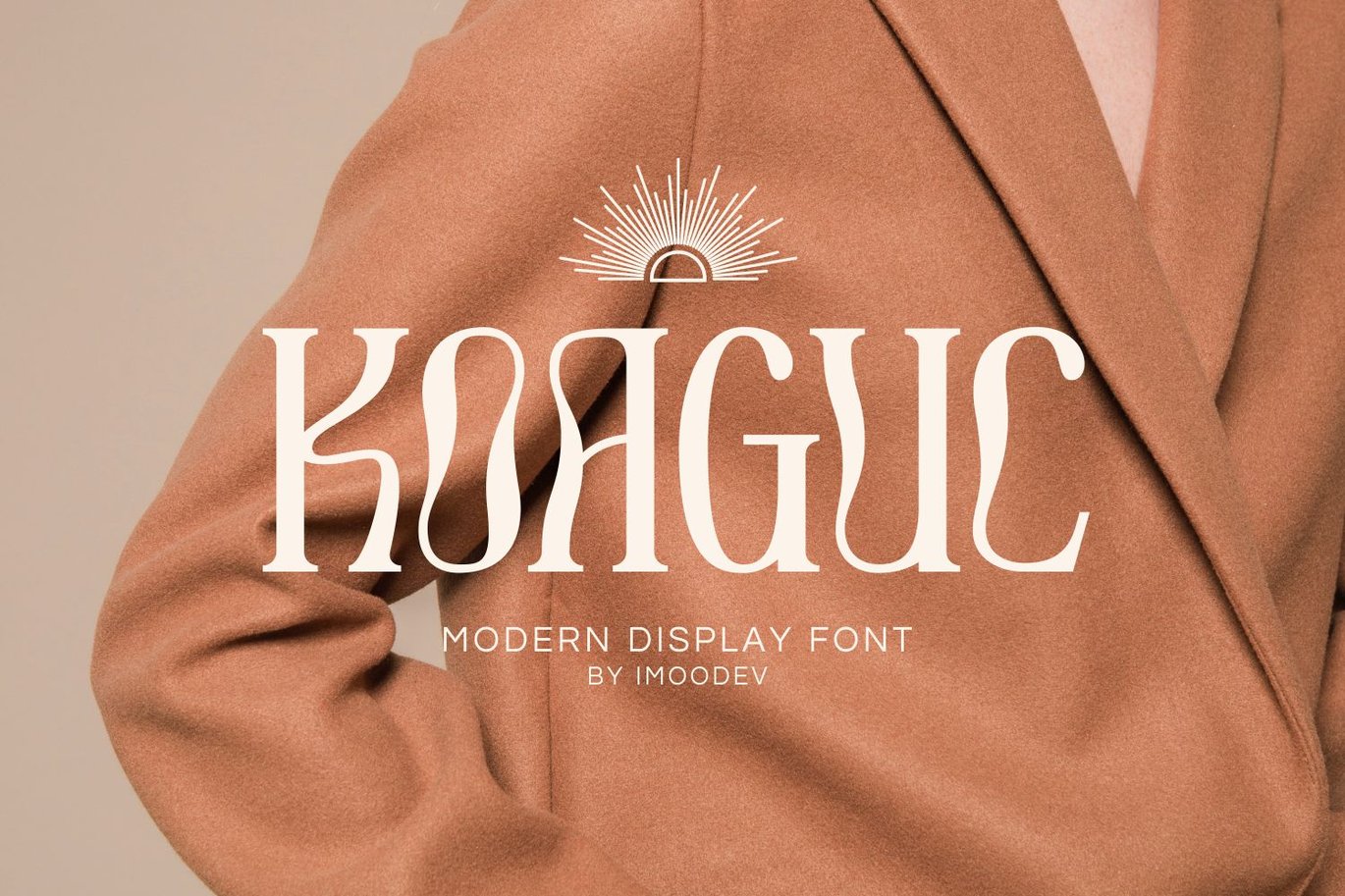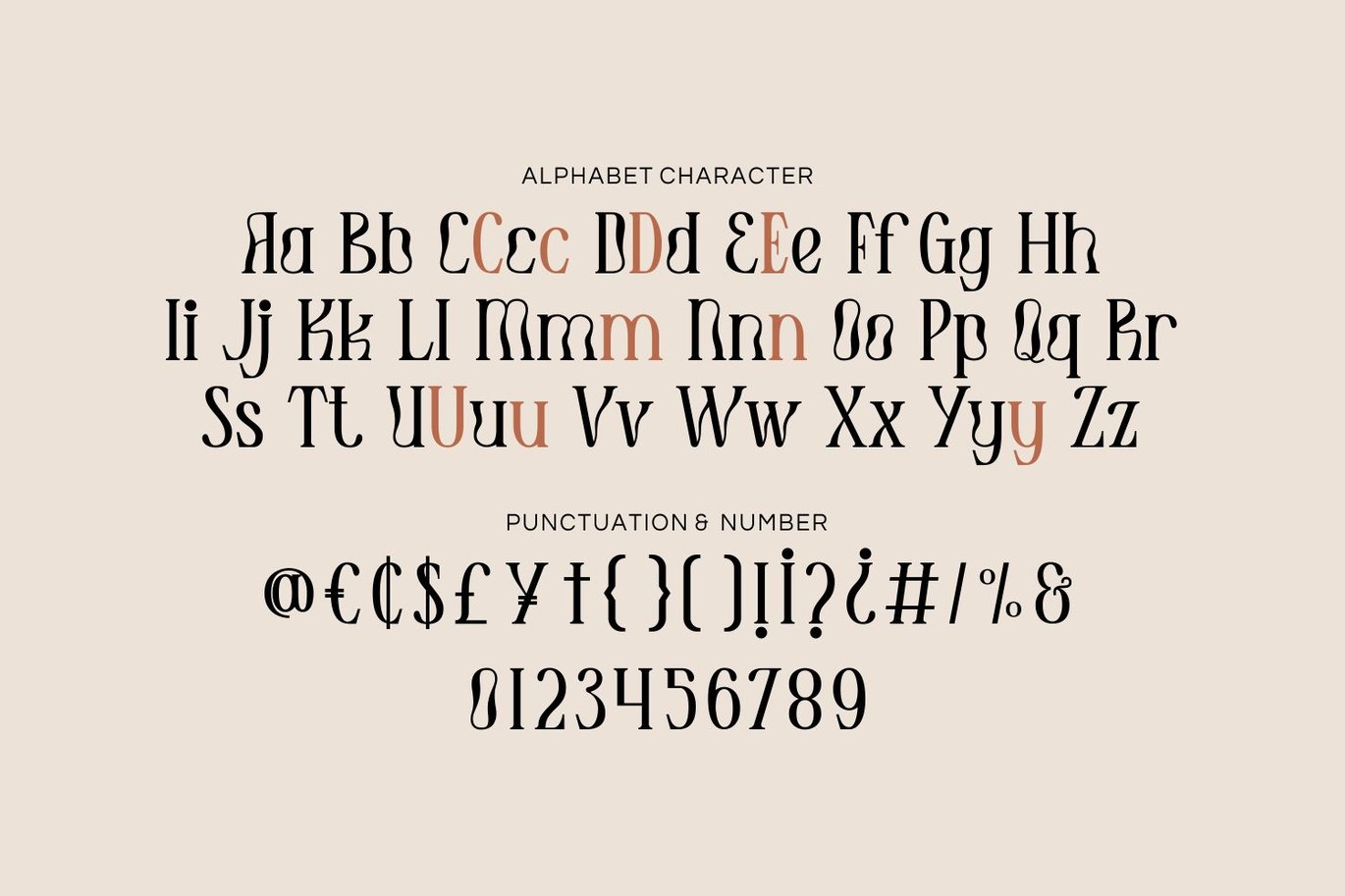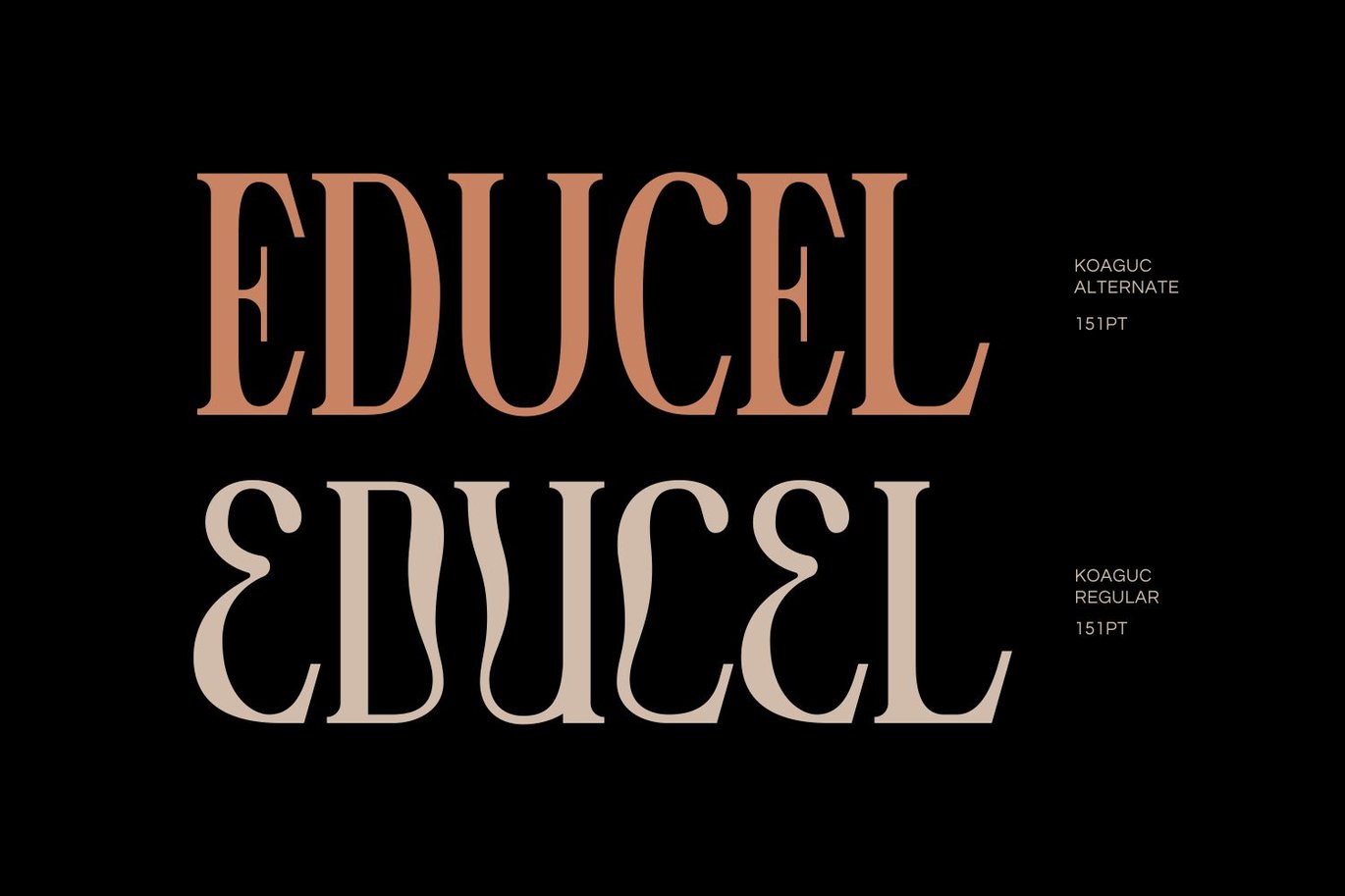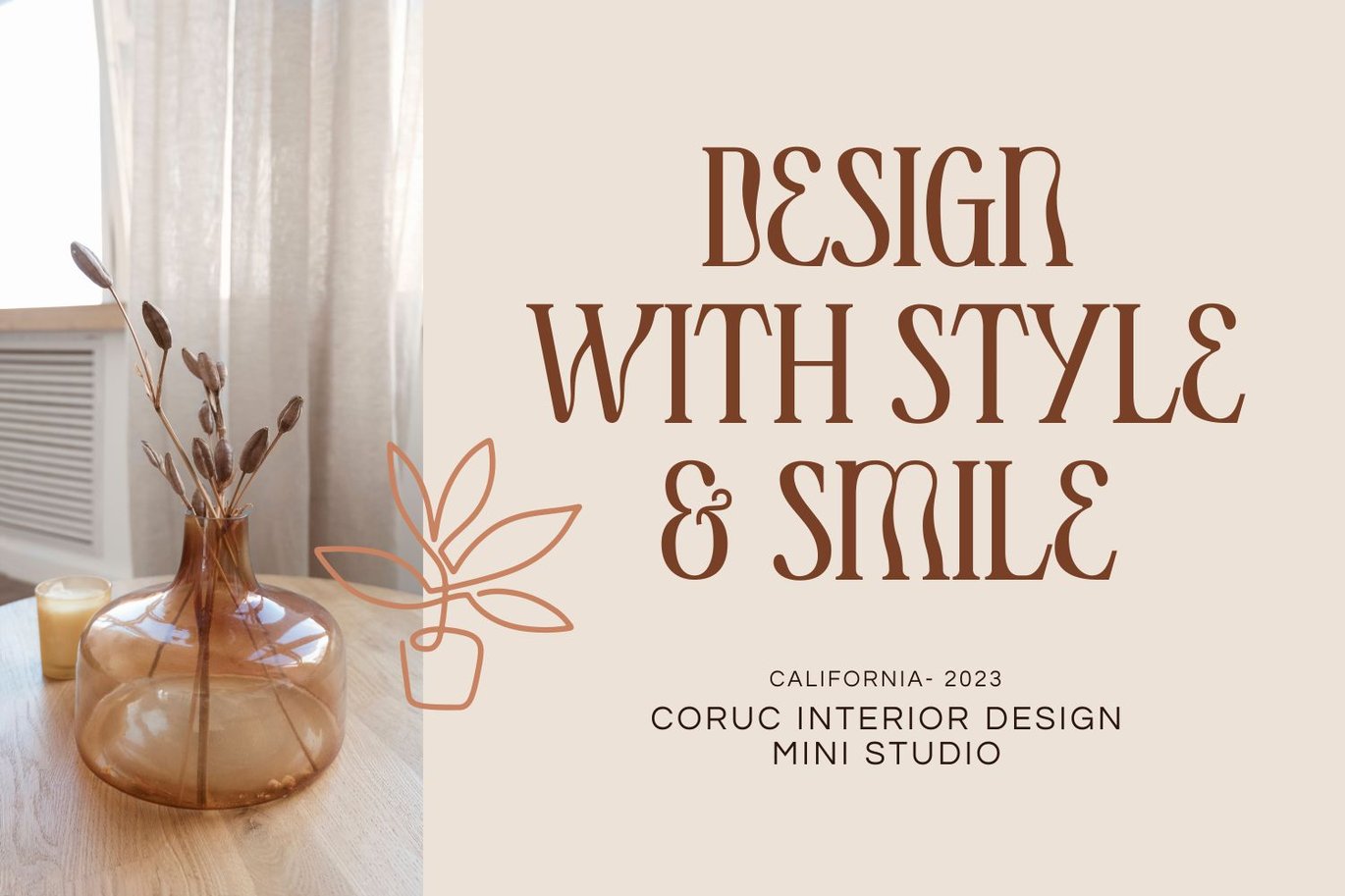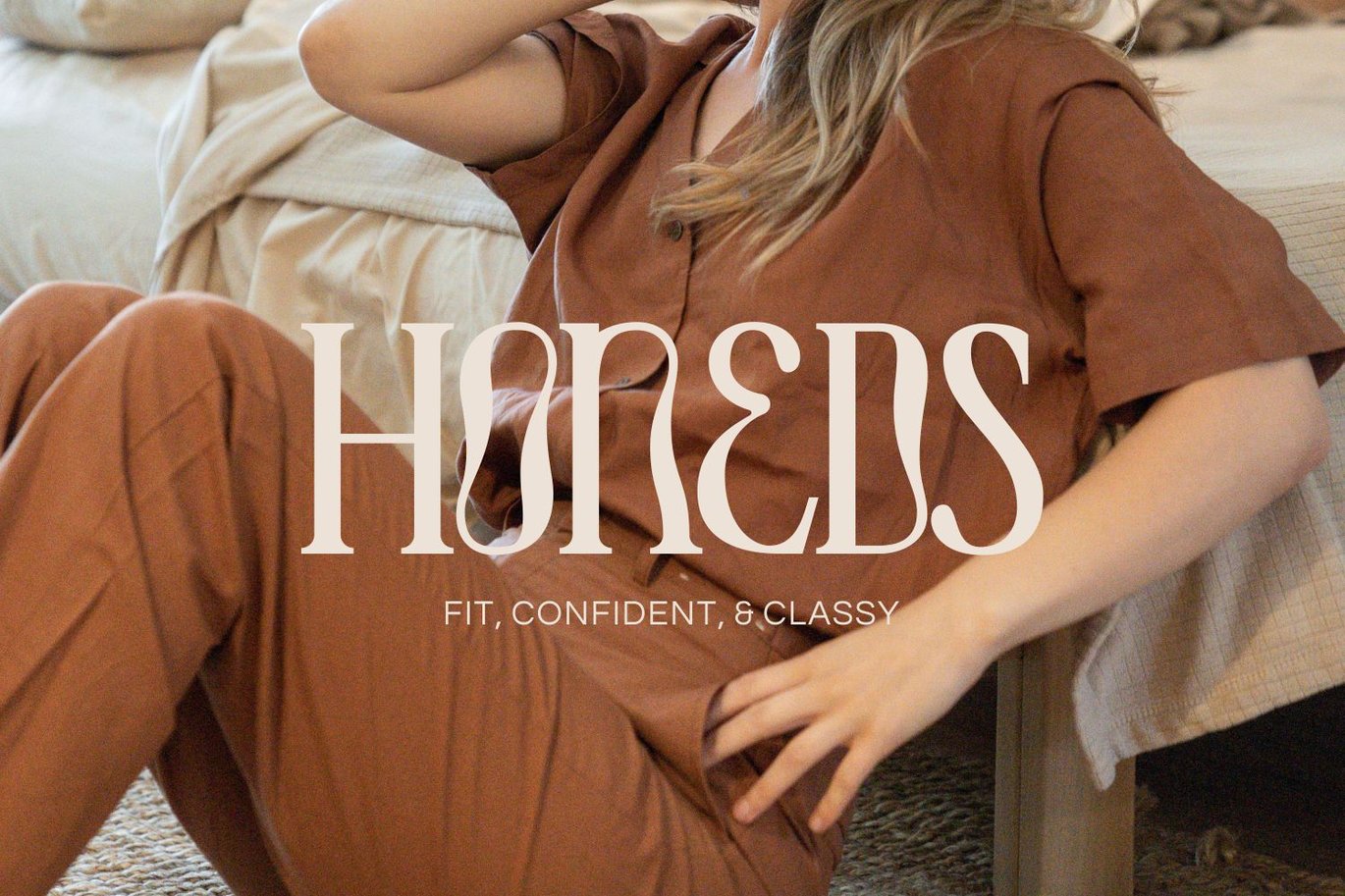
Koaguc – Wavy Serif Font
Koaguc is a luxury and modern serif typeface that blends traditional serif structures with whimsical, wave-like curves. The wavy effect is subtle yet eye-catching, adding a playful and artistic dimension to the letterforms.
It is perfect for high-end branding, editorial headlines, interior design projects, branding, or artistic projects that require a sophisticated yet distinctive look.
- Punctuation, Alternates and, Ligatures
- Number and Symbol